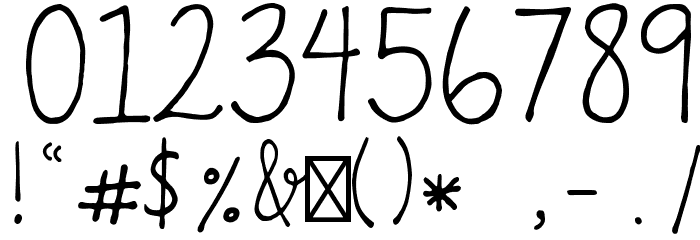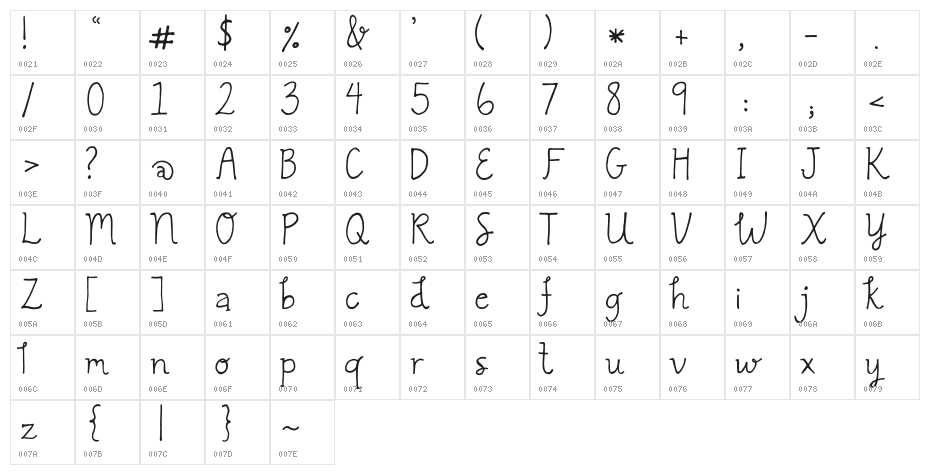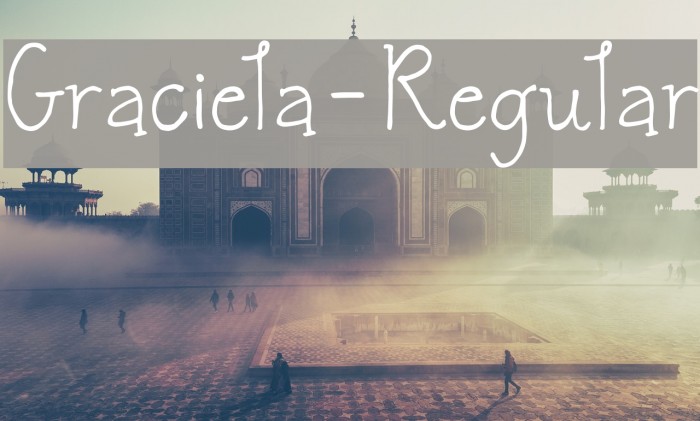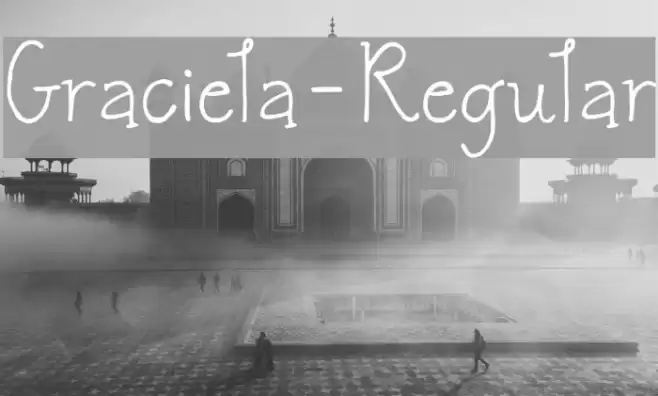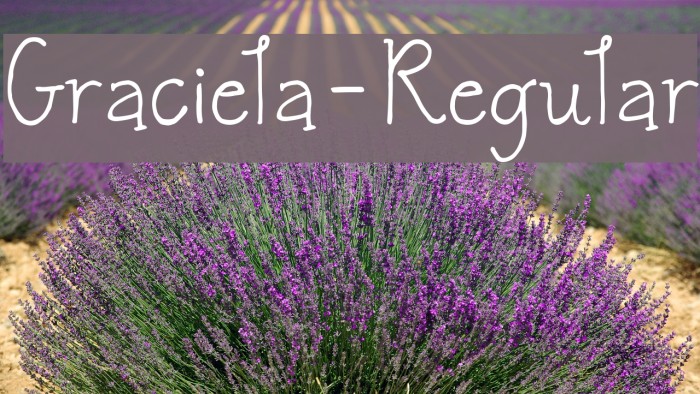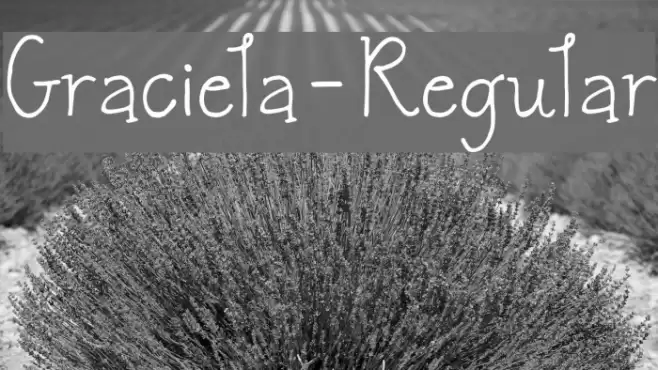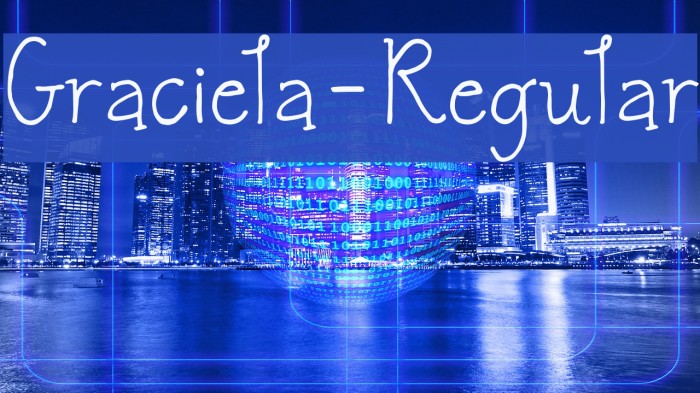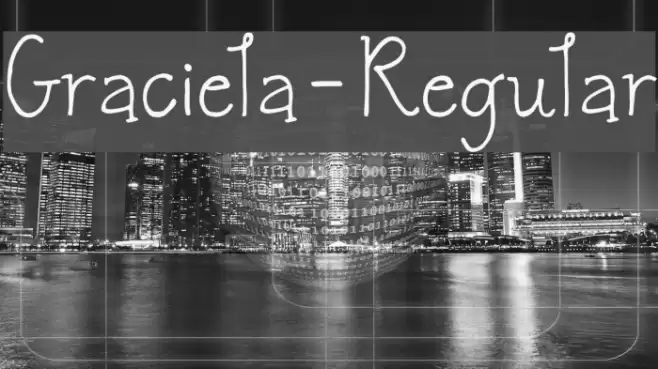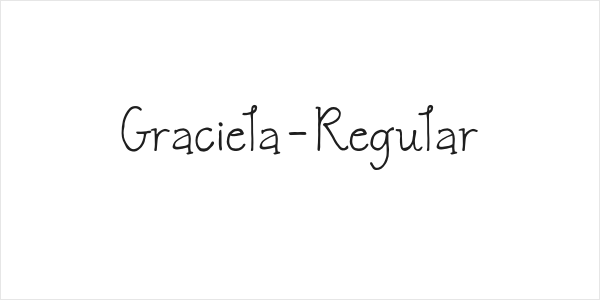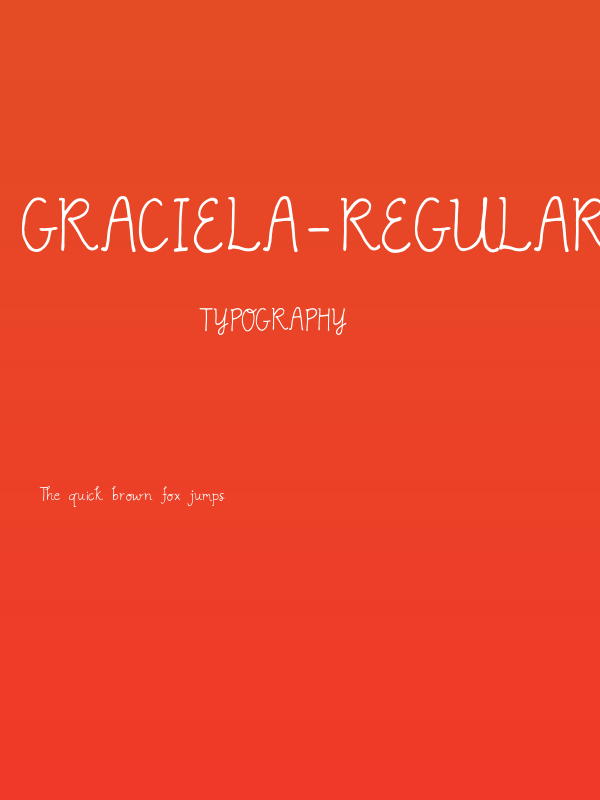
Graciela-Regular Font
Graciela-Regular Description
This font features a playful and whimsical handwritten style, characterized by its irregular strokes and casual appearance. The letters have a slightly uneven baseline, giving them a dynamic and lively feel. The uppercase letters are tall and narrow, while the lowercase letters maintain a consistent height, adding to the font's charm. The numerals are distinct and easy to read, with a similar playful touch. Special characters are creatively designed, maintaining the overall aesthetic. This font is perfect for projects that require a personal and informal touch, such as invitations, greeting cards, or creative branding.
| Overall Style | Whimsical |
| Use Case | Creative branding, Invitations, Greeting cards |
| Proposed Projects | Ideal for invitations, greeting cards, creative branding, and personal projects. |